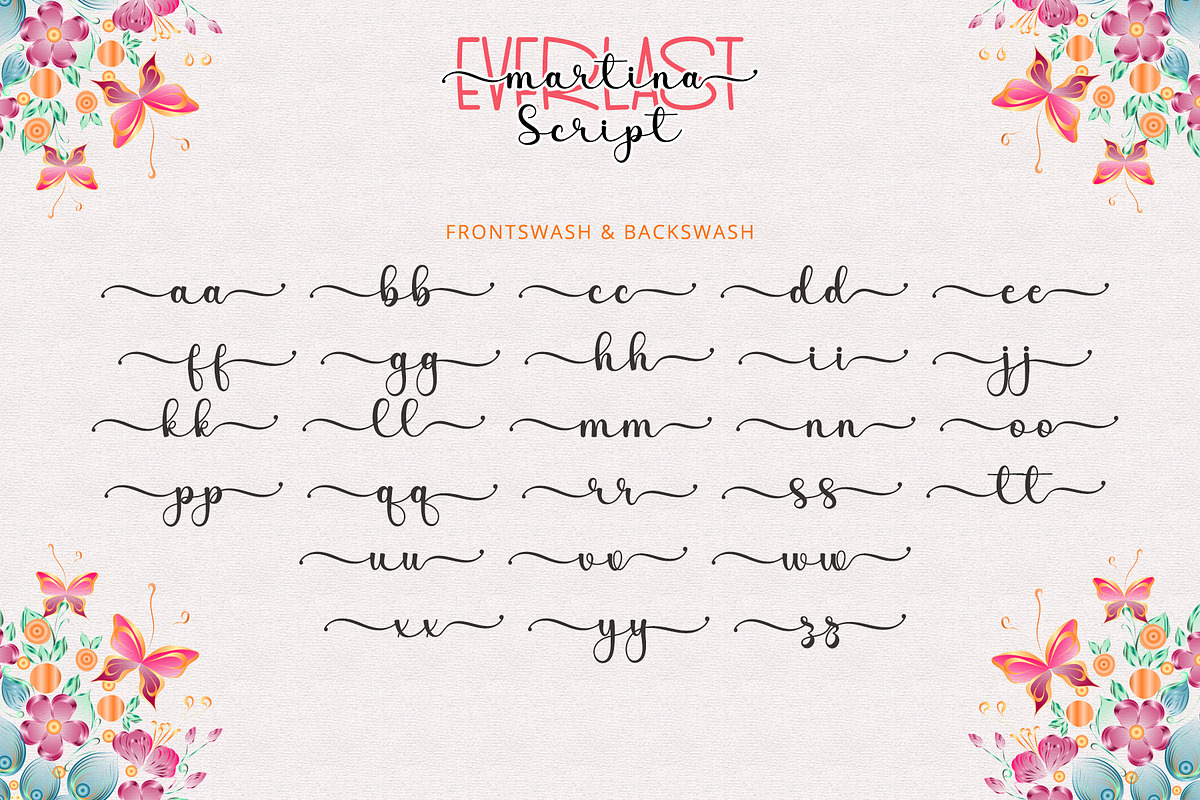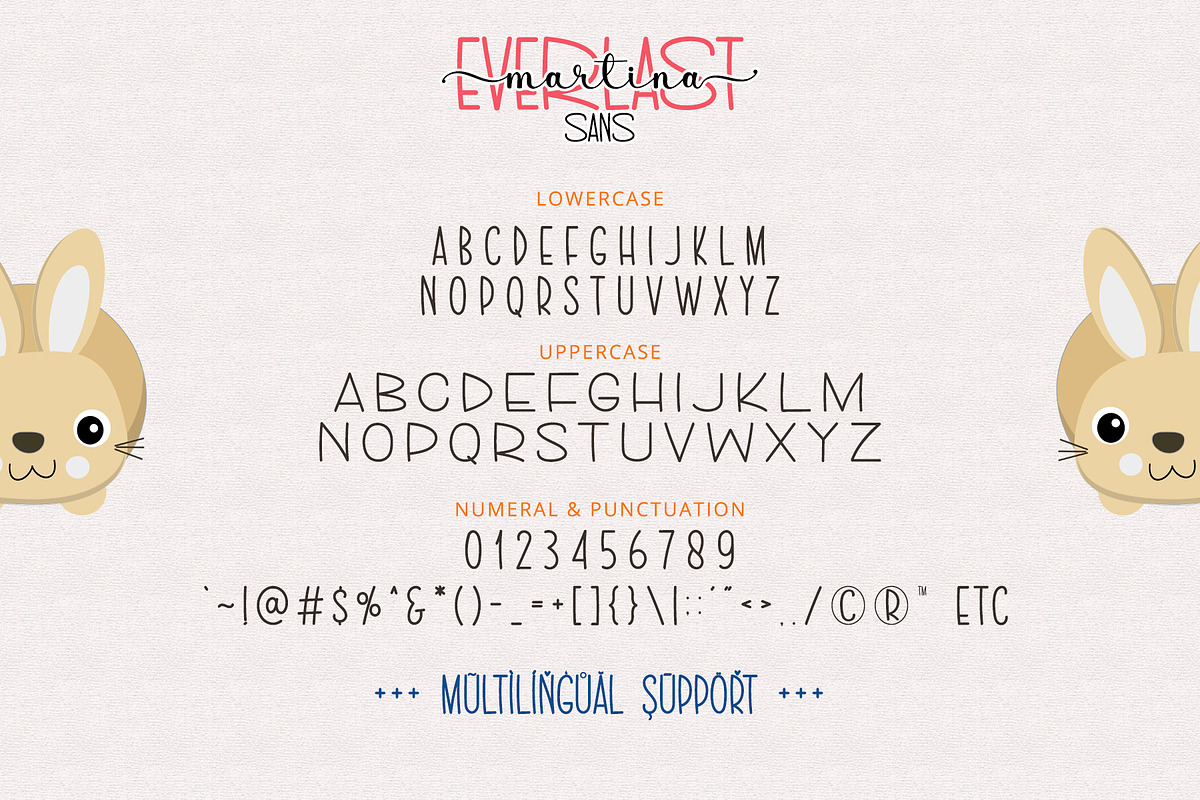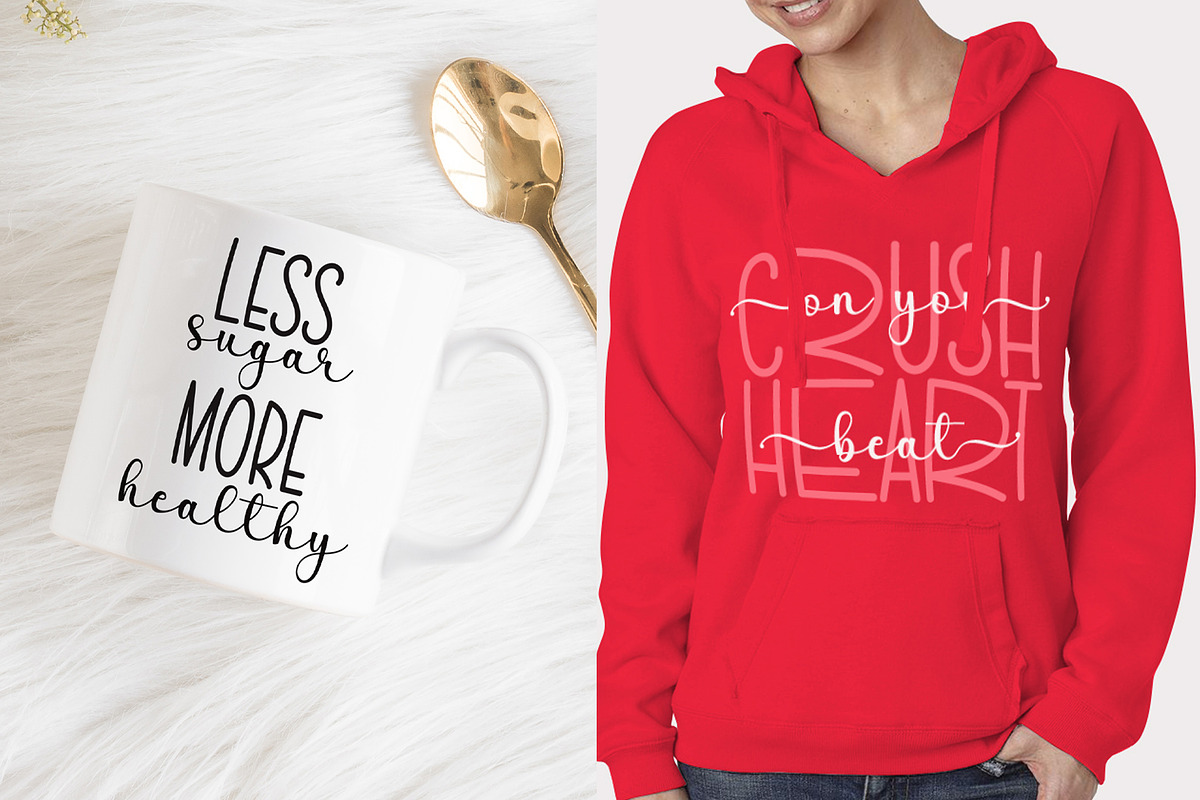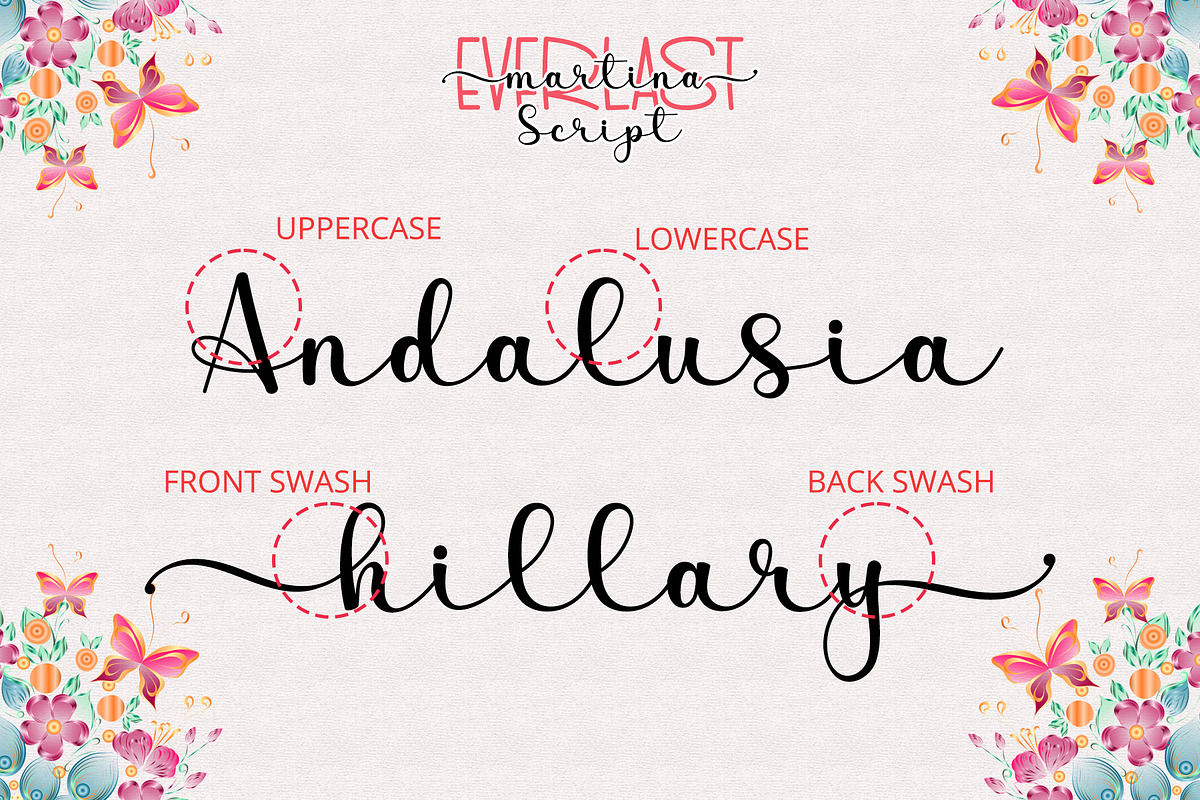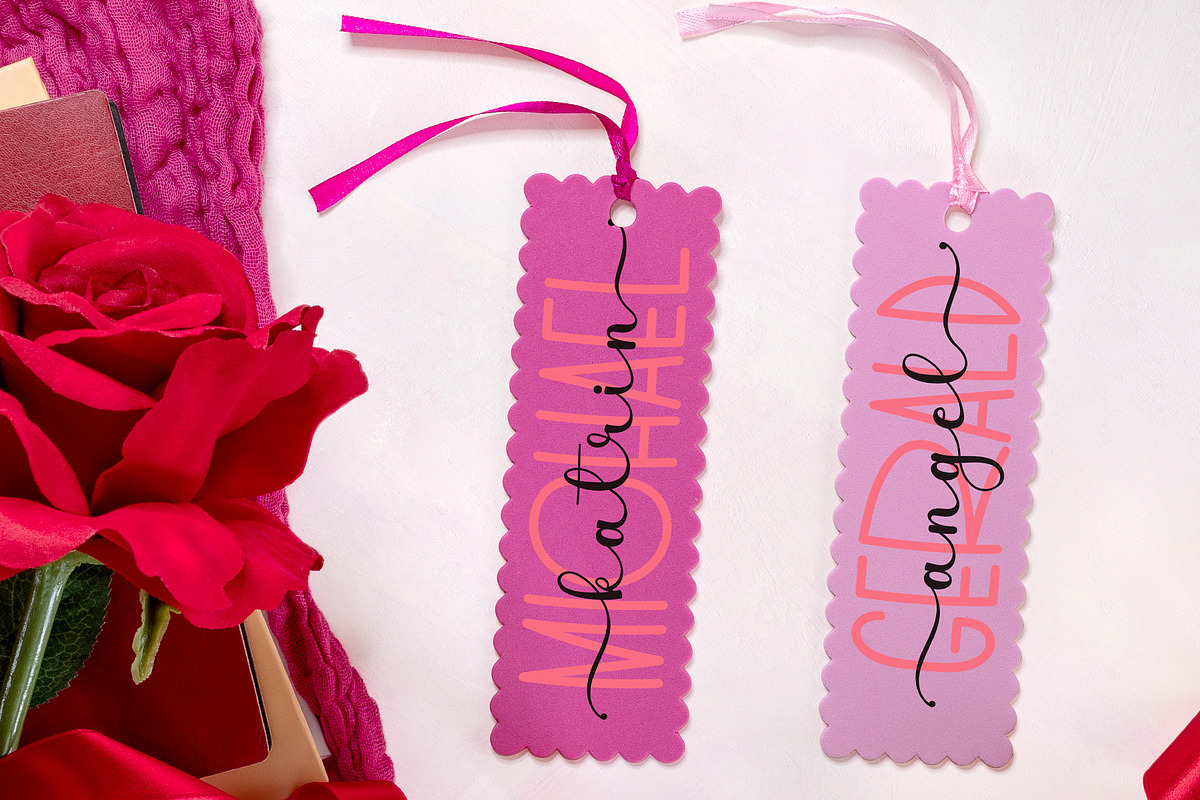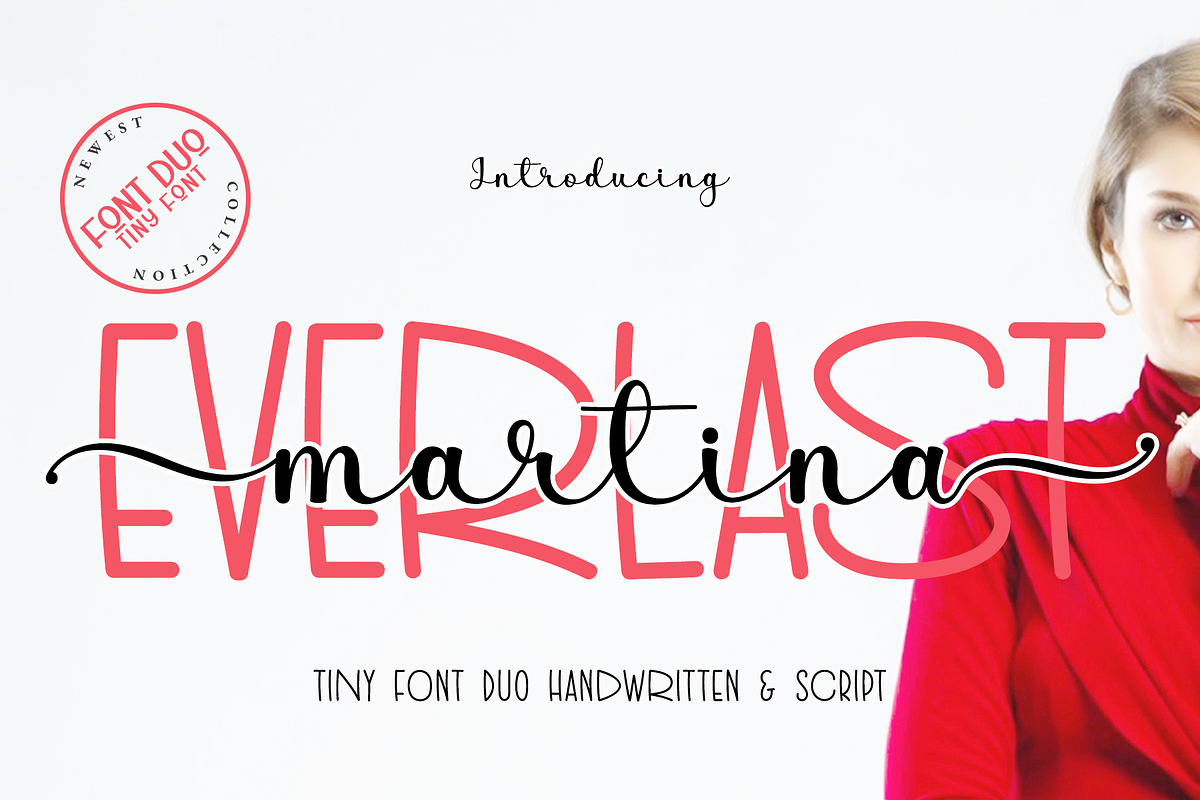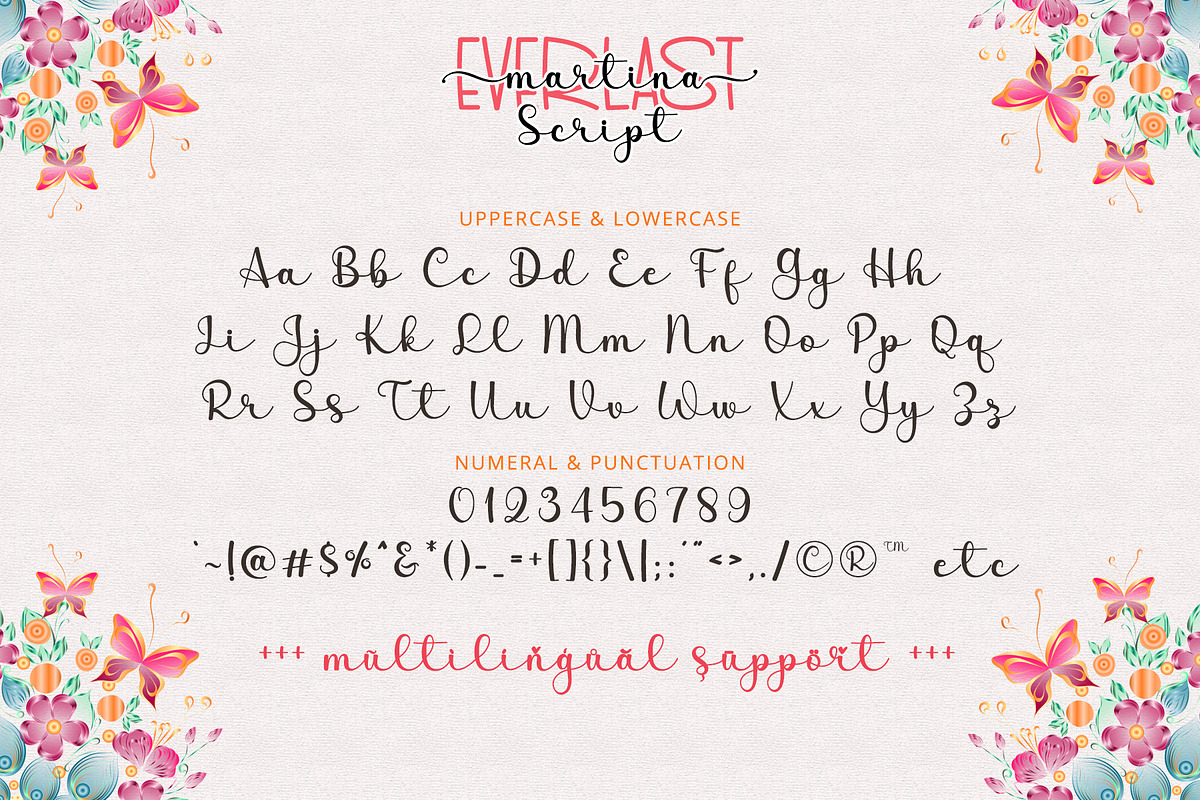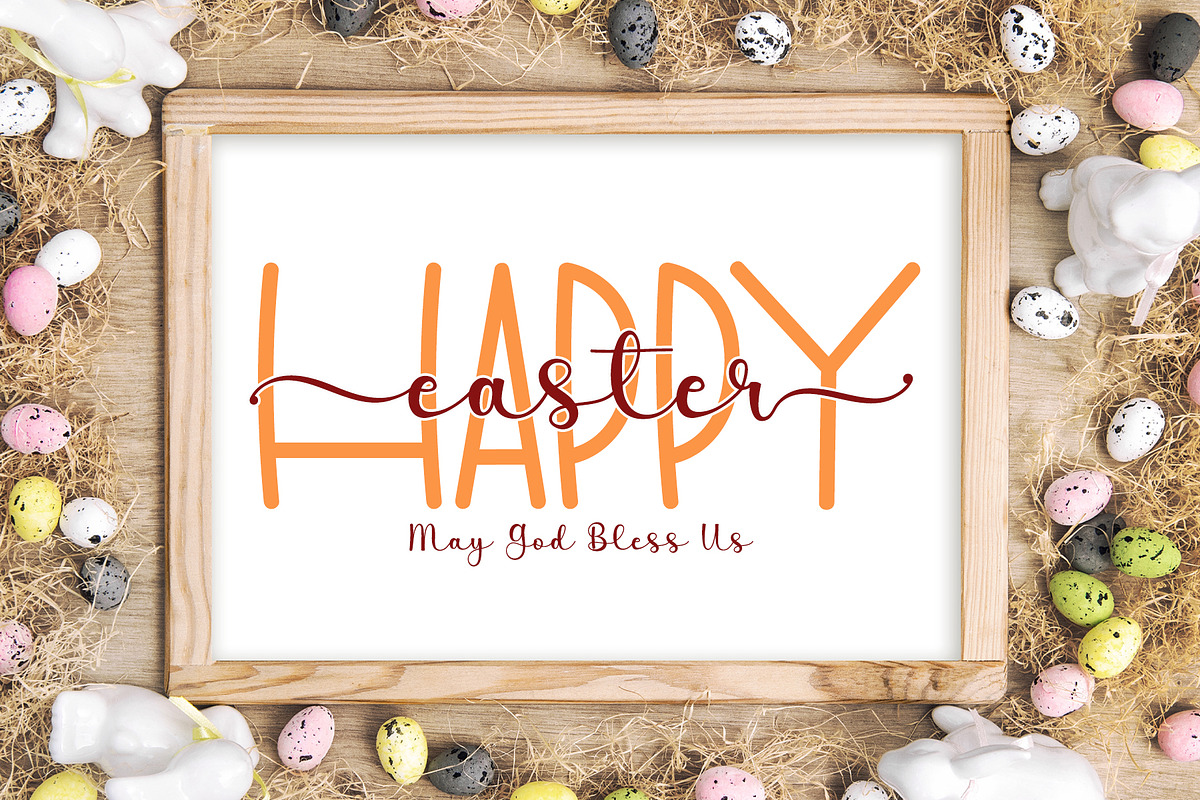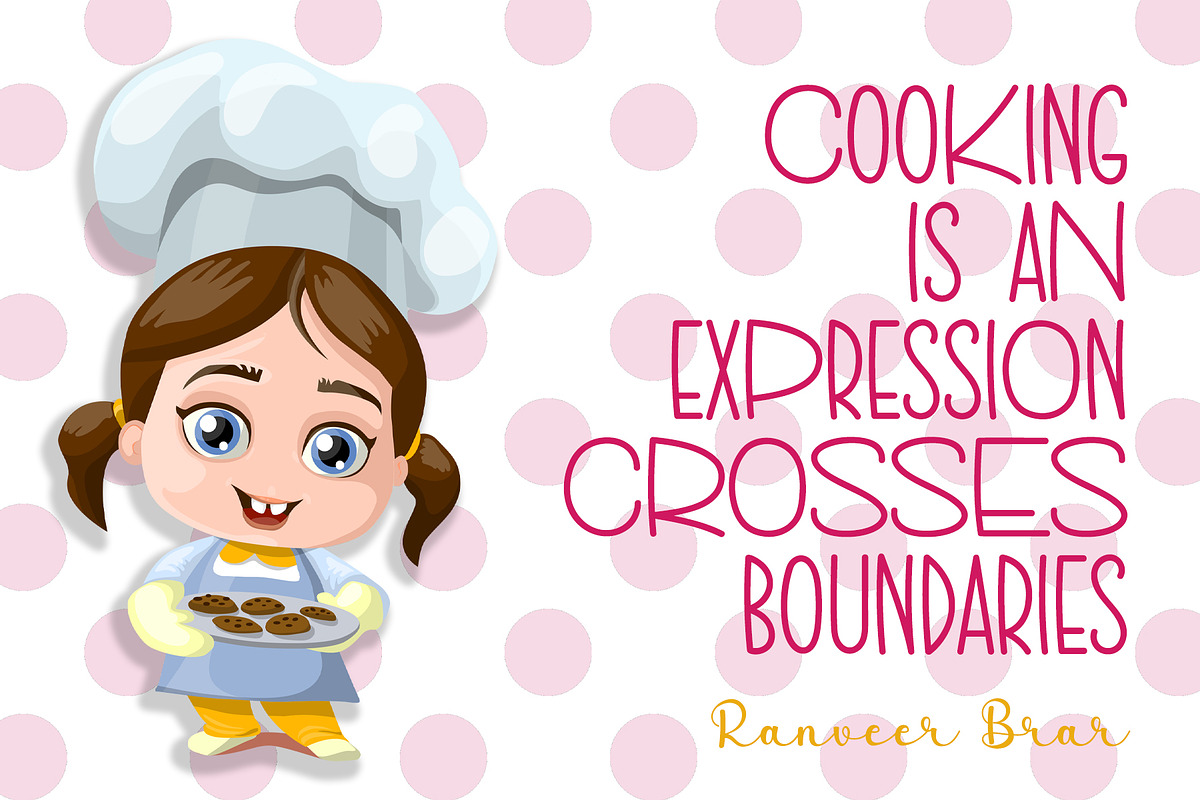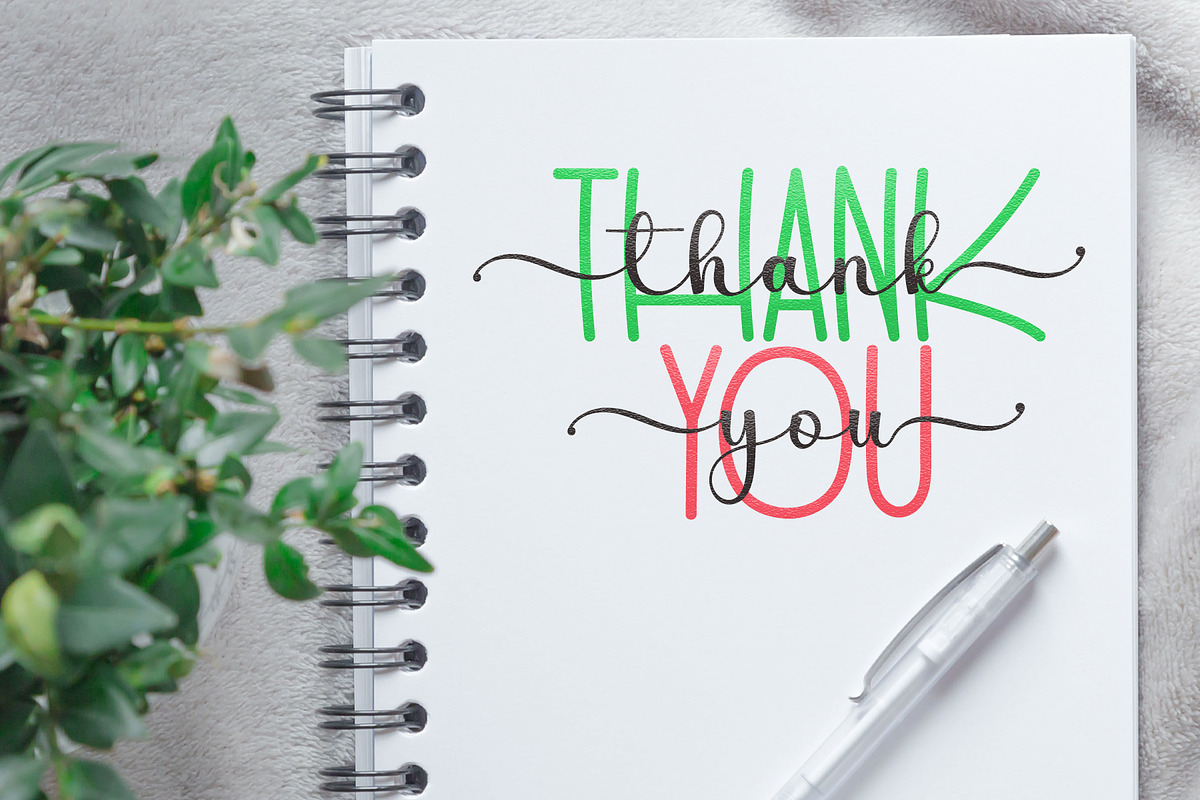
Everlast Martina - Handwritten Duo
Introducing new script handwritten font duo "Everlast Martina".
Everlast Martina is sweet, cute and tiny font. The elegance and sweetness of this font can be used in any design, such as t-shirt, mug, branding, logo, wedding invitation, sublimation, and many other crafting.
Everlast Martina is font duo. It has script style and cute tiny handwritten style. Both styles are perfect to be combined into design or used in separate design.
- Uppercase and Lowercase (include PUA-Encoded extra glyphs for script font)
- Most Multilingual Accent